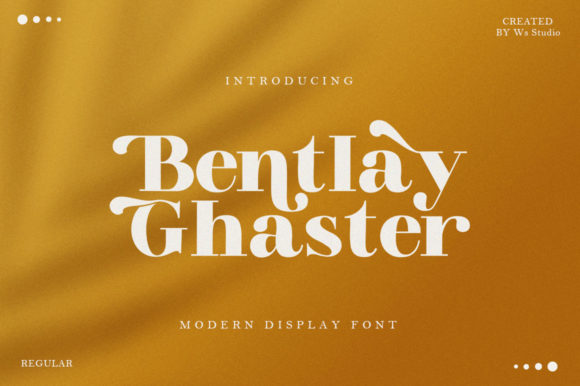
Bentlay Ghaster Font: The Ultimate Choice for Bold and Assertive Designs
In the world of typography, a font can make or break a design. When it comes to creating a bold and assertive look, Bentlay Ghaster font is the perfect choice. This serif font is designed to make a statement, and its versatility makes it suitable for a wide range of applications. In this article, we’ll dive into the features and benefits of Bentlay Ghaster font, and explore how it can elevate your design projects.
What is Bentlay Ghaster Font?
Bentlay Ghaster font is a bold and assertive serif font that exudes confidence and sophistication. Its sturdy and robust design makes it perfect for creating eye-catching headlines, logos, and titles. The font’s classic serif style ensures that it remains legible even at large sizes, making it ideal for use in a variety of mediums.
Key Features of Bentlay Ghaster Font
- Bold and Assertive: Bentlay Ghaster font is designed to make a statement. Its bold and assertive style ensures that your design grabs attention and leaves a lasting impression.
- Serif Style: The font’s classic serif style adds a touch of sophistication and elegance to your design.
- Highly Legible: Despite its bold style, Bentlay Ghaster font remains highly legible even at large sizes.
- Versatile: The font is suitable for a wide range of applications, from logotypes and headlines to posters, magazines, and websites.
Use Cases for Bentlay Ghaster Font
Bentlay Ghaster font is an incredibly versatile font that can be used in a variety of design projects. Here are some of the most popular use cases:
- Logotype and Branding: Create a bold and memorable logo for your brand with Bentlay Ghaster font.
- Headlines and Titles: Use the font to create eye-catching headlines and titles for your website, magazine, or book.
- Corporate Identity: Bentlay Ghaster font is perfect for creating a bold and assertive corporate identity for your business.
- Apparel Industry: The font is suitable for use in the apparel industry, from t-shirt designs to fashion magazines.
- Poster and Print Design: Create stunning posters, flyers, and brochures with Bentlay Ghaster font.
- Digital Media: Use the font to create engaging YouTube videos, Instagram posts, and website content.
- Movie and Game Titles: Bentlay Ghaster font is perfect for creating bold and attention-grabbing titles for movies and games.
Benefits of Using Bentlay Ghaster Font
So why choose Bentlay Ghaster font for your design projects? Here are some of the benefits of using this incredible font:
- Unique and Memorable: Bentlay Ghaster font helps you create a unique and memorable design that stands out from the crowd.
- Professional and Sophisticated: The font’s classic serif style adds a touch of professionalism and sophistication to your design.
- Highly Versatile: Bentlay Ghaster font can be used in a wide range of applications, making it a valuable addition to your font library.
- Easy to Read: Despite its bold style, the font remains highly legible, ensuring that your message is communicated effectively.
In conclusion, Bentlay Ghaster font is a bold and assertive serif font that is perfect for designers and crafters looking to create stunning designs. Its versatility, legibility, and sophistication make it suitable for a wide range of applications, from logotypes and headlines to posters, magazines, and websites. Whether you’re a seasoned designer or just starting out, Bentlay Ghaster font is an excellent choice for any design project.